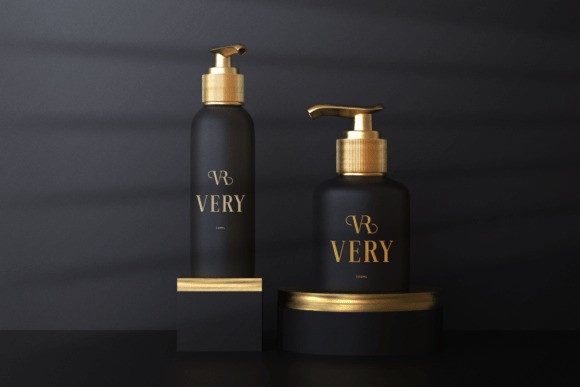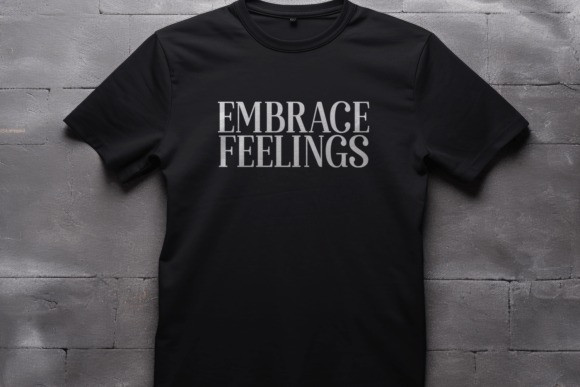
Lines Dream Font
Lines Dream Font, a new elegant serif font from the year 2025. The dreamy and grand scenery perfectly complements the font’s modern and refined character.